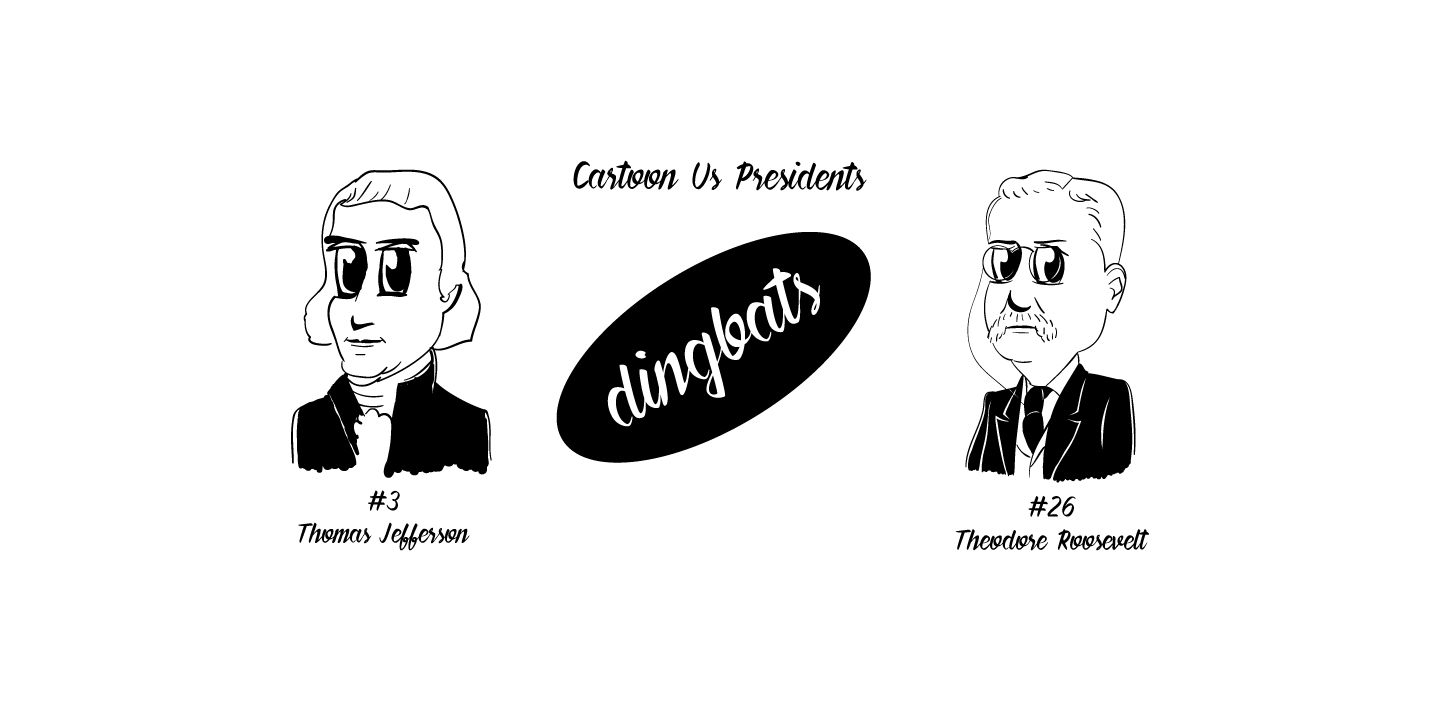
The Ultimate Guide to Cartoon US Presidents Dingbats Font
I’ll never forget the time I was working on a project for a client who requested a fun and educational design element. I was tasked with creating a visually appealing timeline of US Presidents, and I knew I needed a special font to bring it to life. After scouring the internet for hours, I stumbled upon the Cartoon US Presidents Dingbats Font. It was love at first sight! 😍 This font has been a game-changer for my design projects, and I’m excited to share its awesomeness with you.
- ✨ Unique and engaging handdrawn cartoons of all US Presidents to date
- ✅ Perfect for educational projects, decorations, or fun designs
- 🤔 Some characters may not work well in smaller font sizes, so be mindful of that when designing
- ⚠️ Limited to only the cartoons of US Presidents, so you won’t find other dingbats or symbols
The Story Behind Cartoon US Presidents Dingbats Font
The Cartoon US Presidents Dingbats Font was created by a talented designer who wanted to bring a fun and educational element to design projects. The designer, inspired by their love of history and illustration, handdrew each cartoon character to create a unique and engaging font. The result is a font that’s both entertaining and informative.
Q: What type of projects can I use Cartoon US Presidents Dingbats Font for?
A: You can use this font for various projects, including educational materials, presentations, posters, and decorations.
Q: Are there any limitations to using Cartoon US Presidents Dingbats Font?
A: The font has some limitations, such as limited character set and potential issues with smaller font sizes.